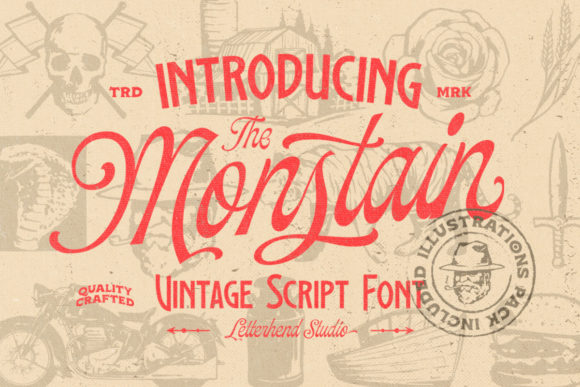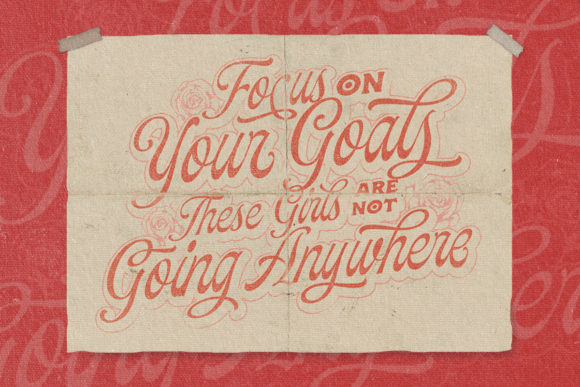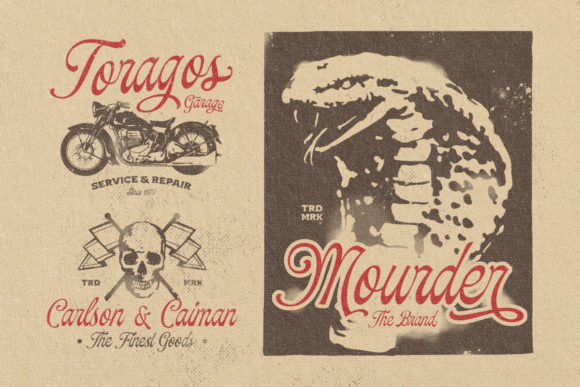
About The Monstain Font
The Monstain is a captivating vintage script font that exudes an air of timeless elegance and style. With its distinctive charm and classic appeal, this font adds a touch of sophistication to a range of design applications.
The carefully crafted letterforms of The Monstain transport you to a bygone era, evoking a sense of nostalgia and authenticity. Its cursive strokes and intricate details create a sense of craftsmanship that is well-suited for projects that demand a vintage or retro aesthetic.
The Monstain’s versatility shines through its ability to seamlessly transition between various design contexts. Its refined yet approachable style makes it an ideal choice for a diverse range of applications, from book texts and documentation to business reports and corporate designs.
The font’s PUA encoding is a valuable feature that allows you to easily access a plethora of alternate glyphs and swashes. This gives you the creative freedom to experiment with different letterforms and decorative elements, enhancing the visual impact of your designs and adding a personalized touch.
The Monstain’s timeless elegance and attention to detail make it a perfect fit for projects that require an element of sophistication and a nod to the past. Whether you’re designing vintage-inspired book covers, elegant business materials, or any other creative endeavor, The Monstain lends an air of authenticity that resonates with your audience.
Overall, The Monstain is a font that combines vintage charm with modern usability. Its unique blend of classic and contemporary elements makes it a versatile and captivating choice for designers looking to infuse their projects with a sense of history and style.